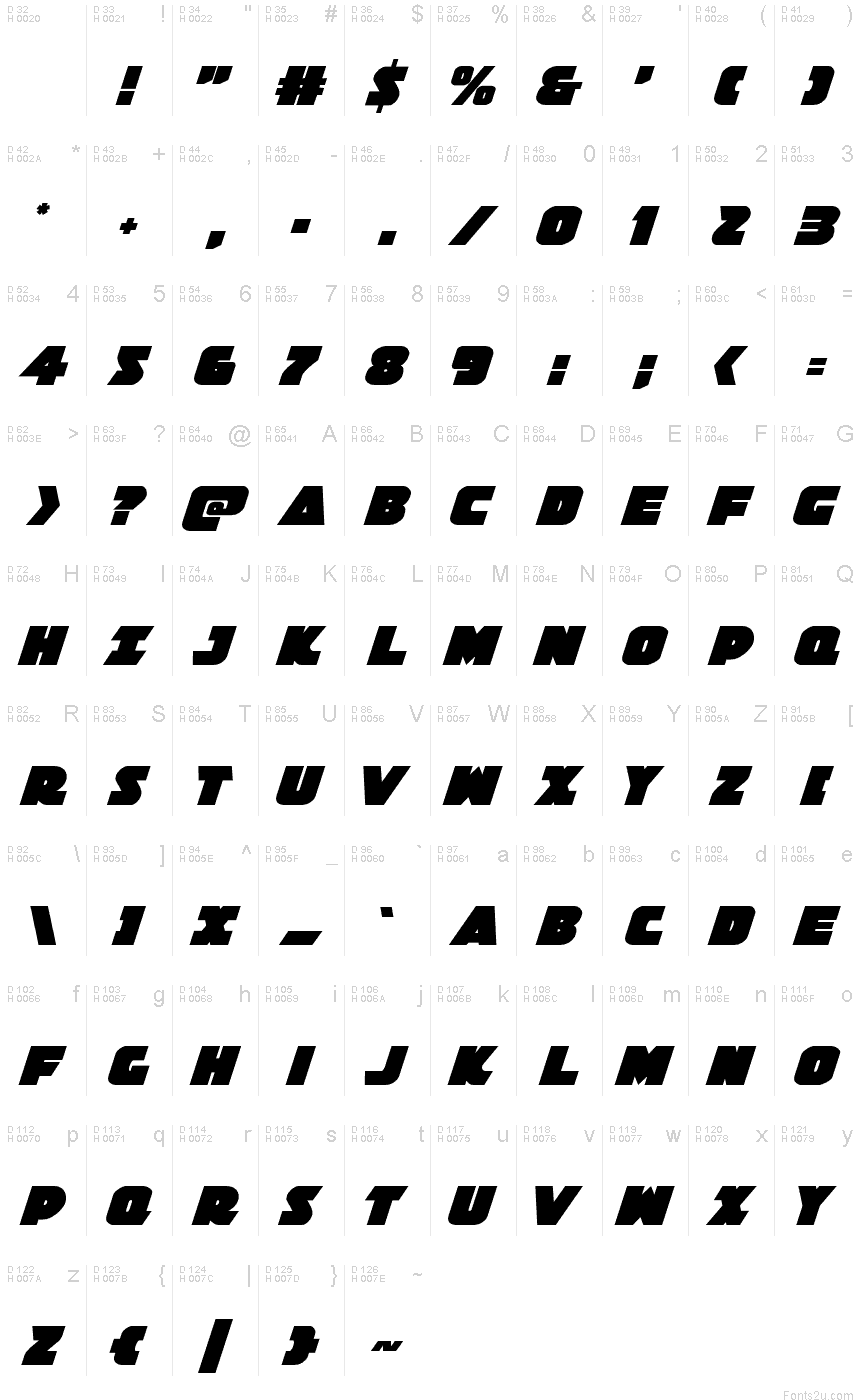
Jedi Special Forces Italic, created in 2012 by Iconian Fonts, is a free futuristic display font with a forceful forward slant, oversized proportions, and broad, tightly fitted letters. Sharp diagonal cuts and small angular openings break up the mass.
Spacecraft silhouettes, armored panel seams, and hard-edged interface graphics echo its swept shapes, making the font useful for science-fiction posters, game packaging, action-themed merchandise, and esports branding. The emphatic speed and military-tech attitude speak directly to audiences for space combat, arcade racing, futuristic entertainment, and high-impact sports media who expect assertive genre lettering.
Jedi Special Forces Italic